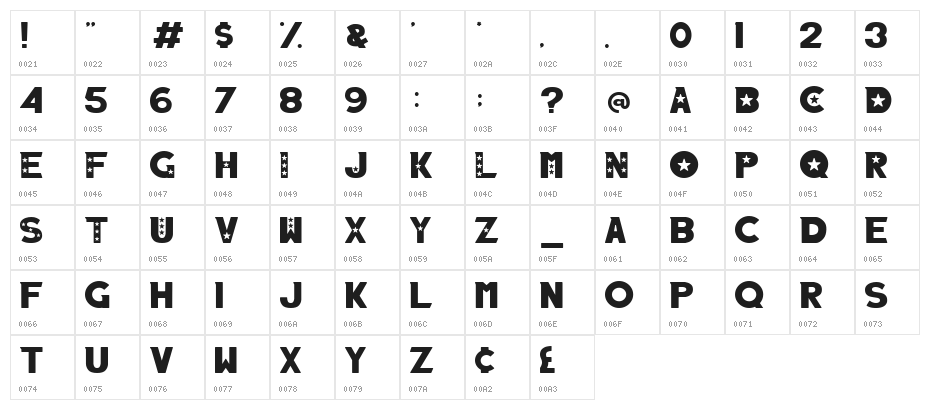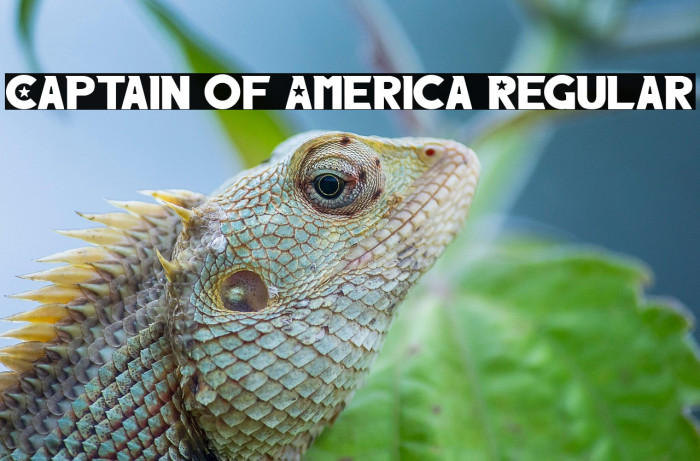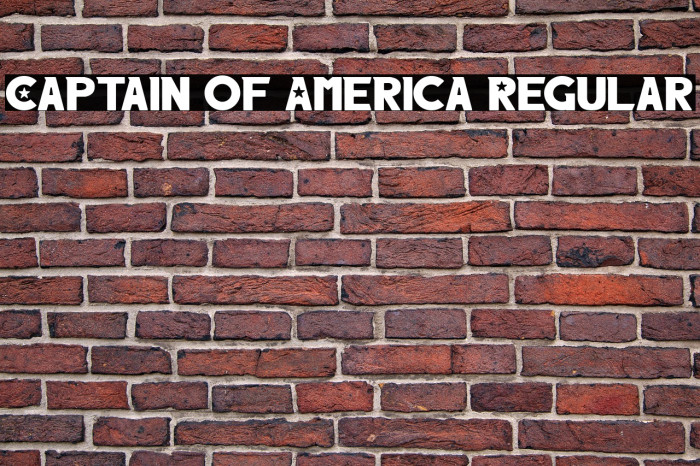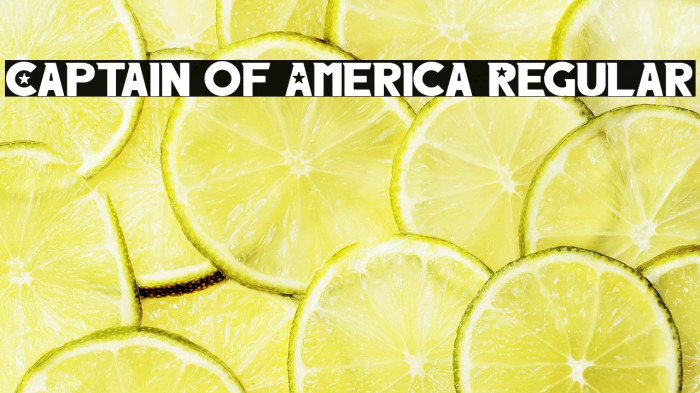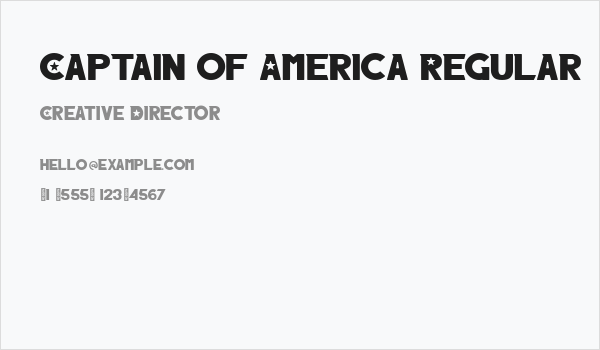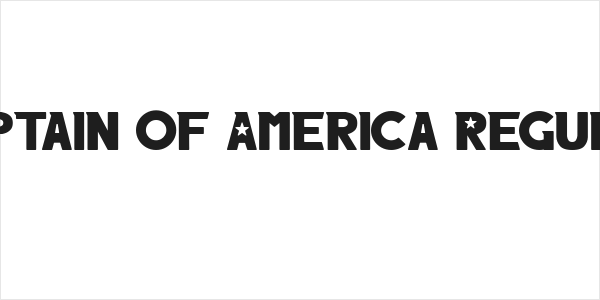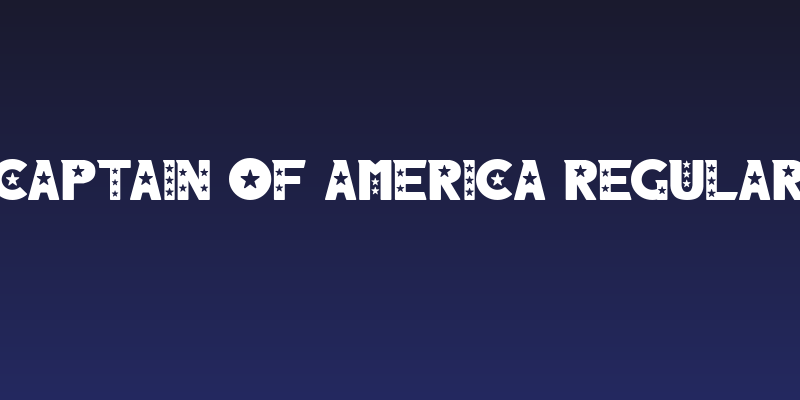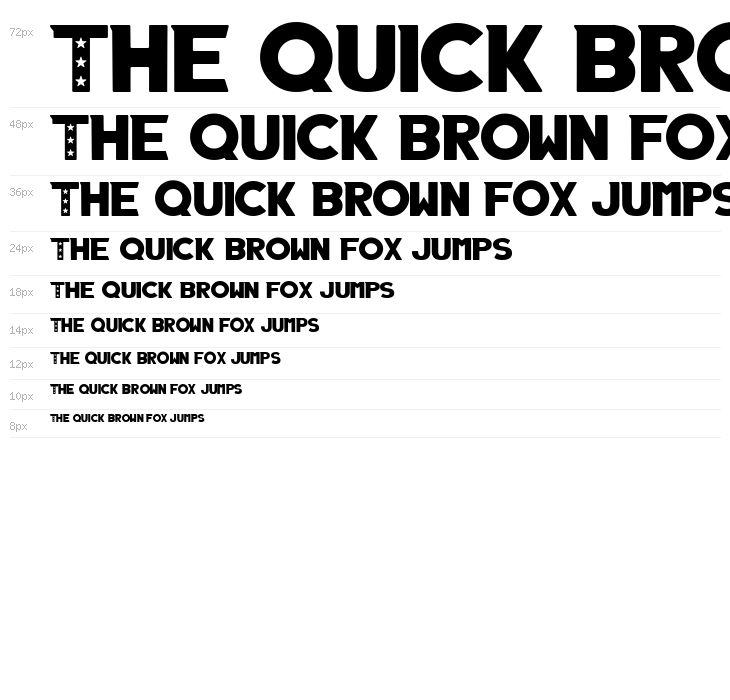
Captain of America Regular Font
Captain of America Regular Description
This bold and striking font features uppercase letters adorned with star motifs, creating a patriotic and eye-catching design. The characters are robust and geometric, with a strong presence that commands attention. The font includes a complete set of uppercase letters, numbers, and a variety of special characters, making it versatile for different design needs. The star embellishments add a decorative touch, perfect for themes related to patriotism, celebration, or bold statements. The overall style is modern with a playful twist, suitable for projects that require a standout typeface.
| Proposed Projects | Ideal for posters, banners, event invitations, and branding that require a patriotic or celebratory theme. |